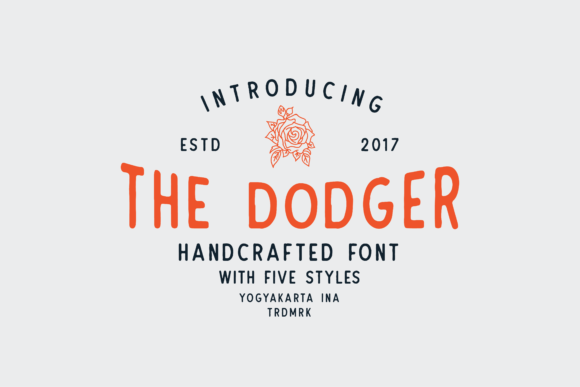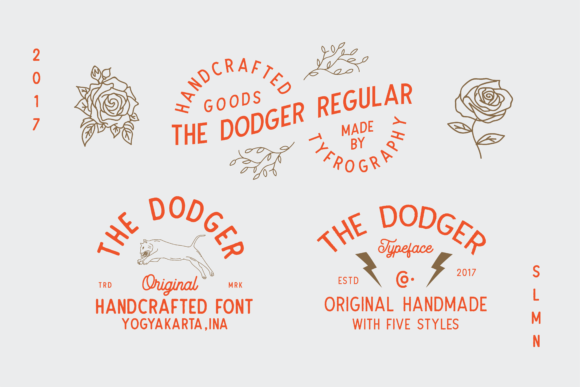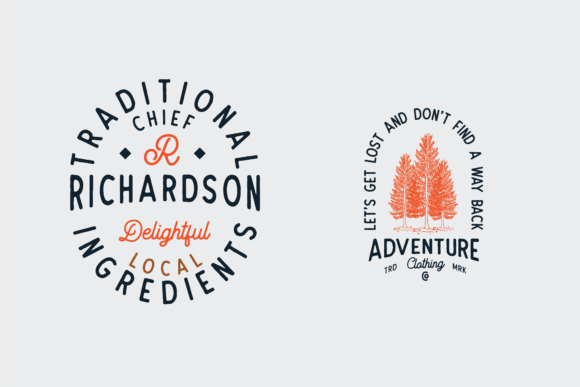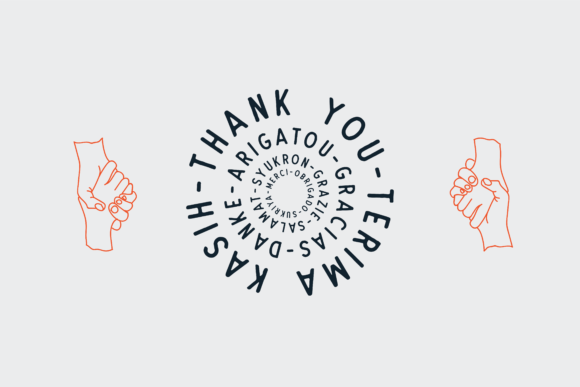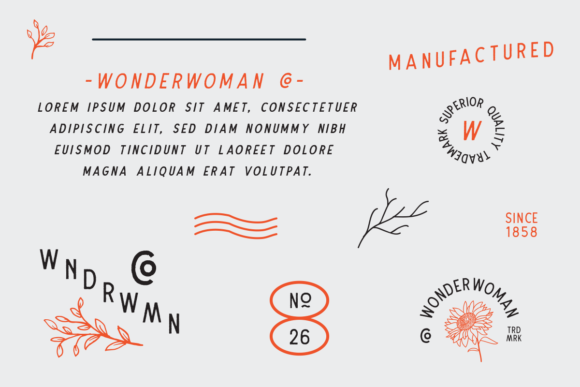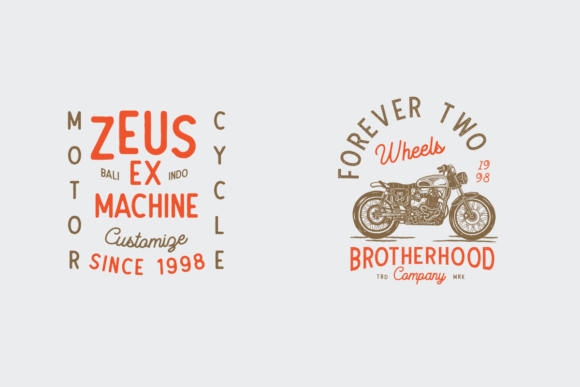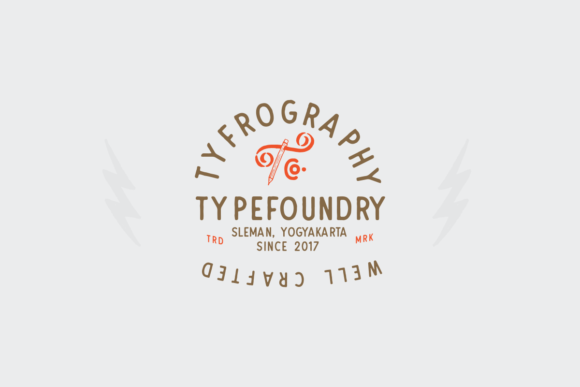
HomeSans Serif FontsThe Dodger Font Sans Serif Fonts The Dodger Font FacebookXPinterestWhatsApp The Dodger Font 1 of 8 About The Dodger Font The Dodger is a family of five sans serif fonts that will look amazing in any kind of design project. Get inspired by its versatile charm! DOWNLOAD NOW People also explored Affiline Font Nitwit Sans Font Slamshrimp Font Fairy Stories Font Blues Nesmoke Font Ericsand Font Kids Font Sumptuous Font Khiara Font 276 0 TagsThe Dodger Font Previous articleNueve Extra Black FontNext articleBearbone Sans Font LEAVE A REPLY Cancel reply Comment: Please enter your comment! Name:* Please enter your name here Email:* You have entered an incorrect email address! Please enter your email address here Website: Save my name, email, and website in this browser for the next time I comment. Personal Use Free Austin Personal Use Free Read more about this font Love Memories Personal Use Free Read more about this font Bakk Trieng Personal Use Free Read more about this font Axaxax Bold Personal Use Free Read more about this font BLOG Using Fonts in Digital Marketing: Tips to Strengthen Your Brand Identity In the realm of digital marketing, every visual element plays a crucial role in shaping a brand's identity, and fonts are no exception. The... Free Fonts Risk: Why Free Fonts Can Be Dangerous for Designers How to Cut Any Font on Cricut: Convert a Font to SVG (Free) Free vs Paid Fonts: Why Investing in Premium Fonts Is Worth It